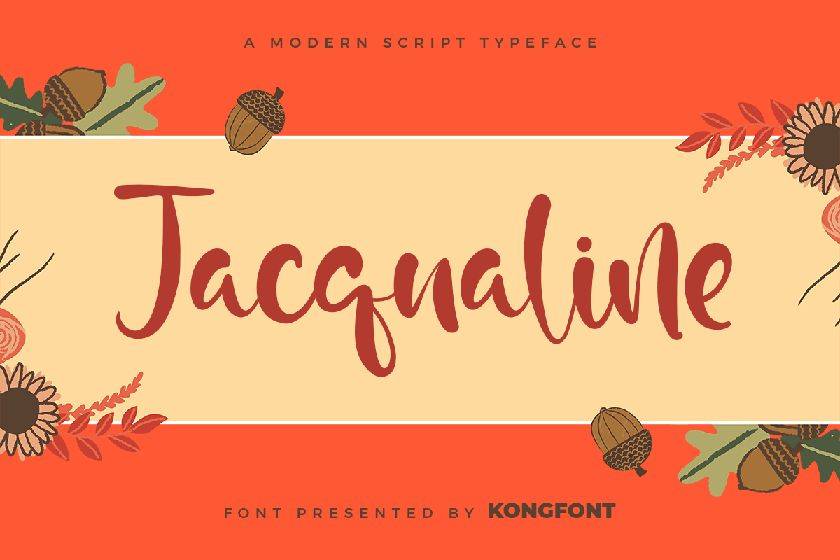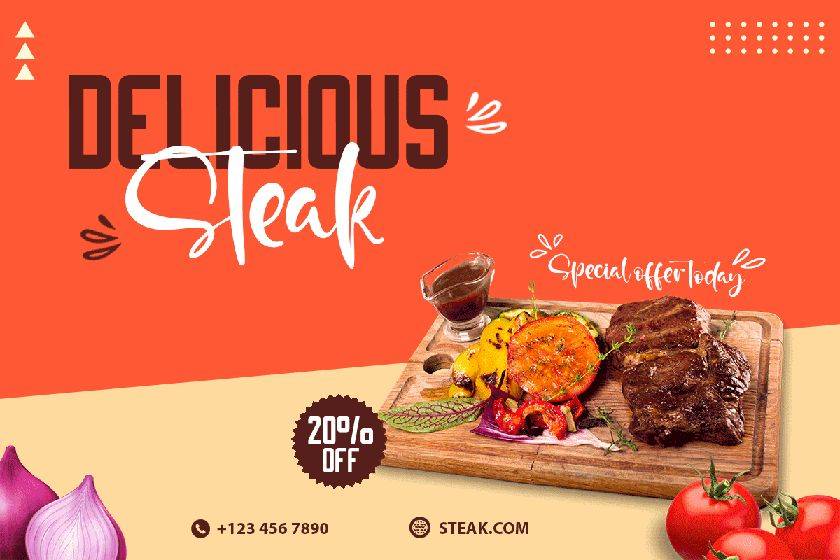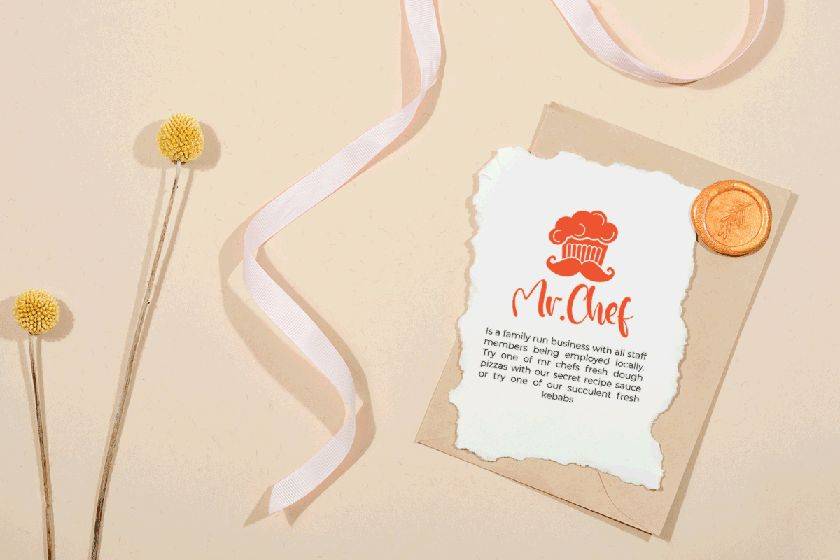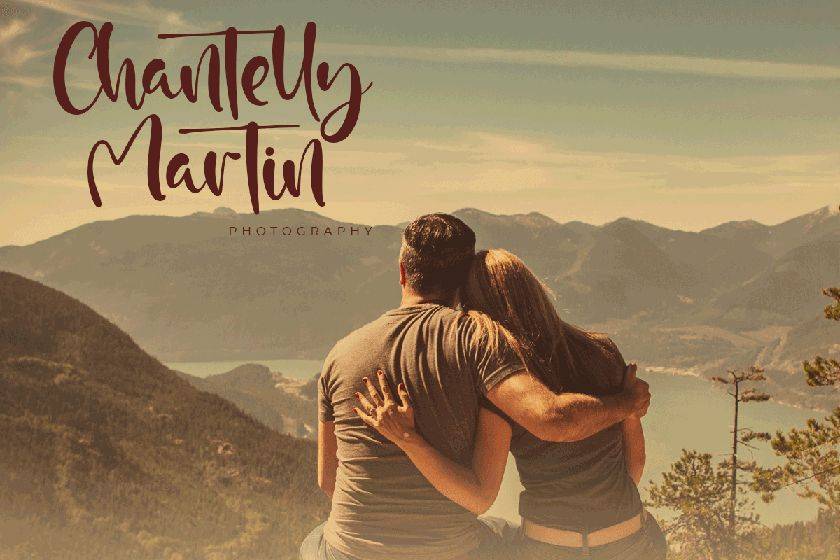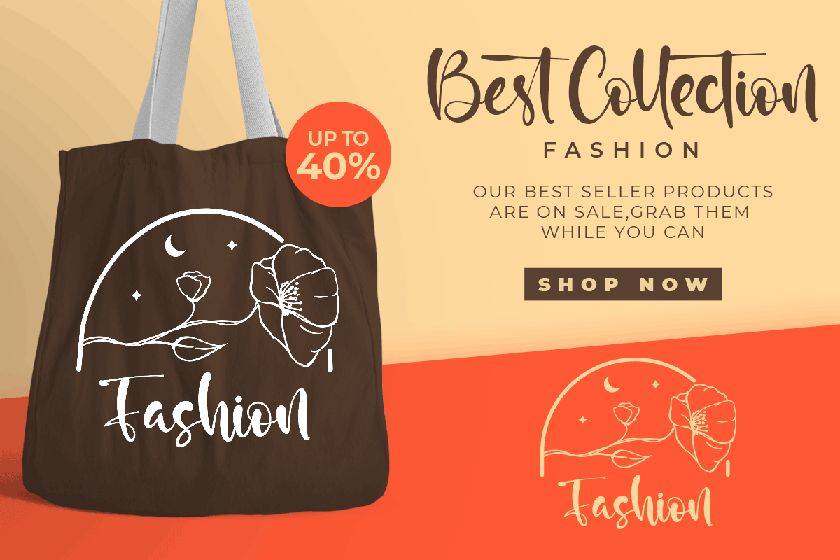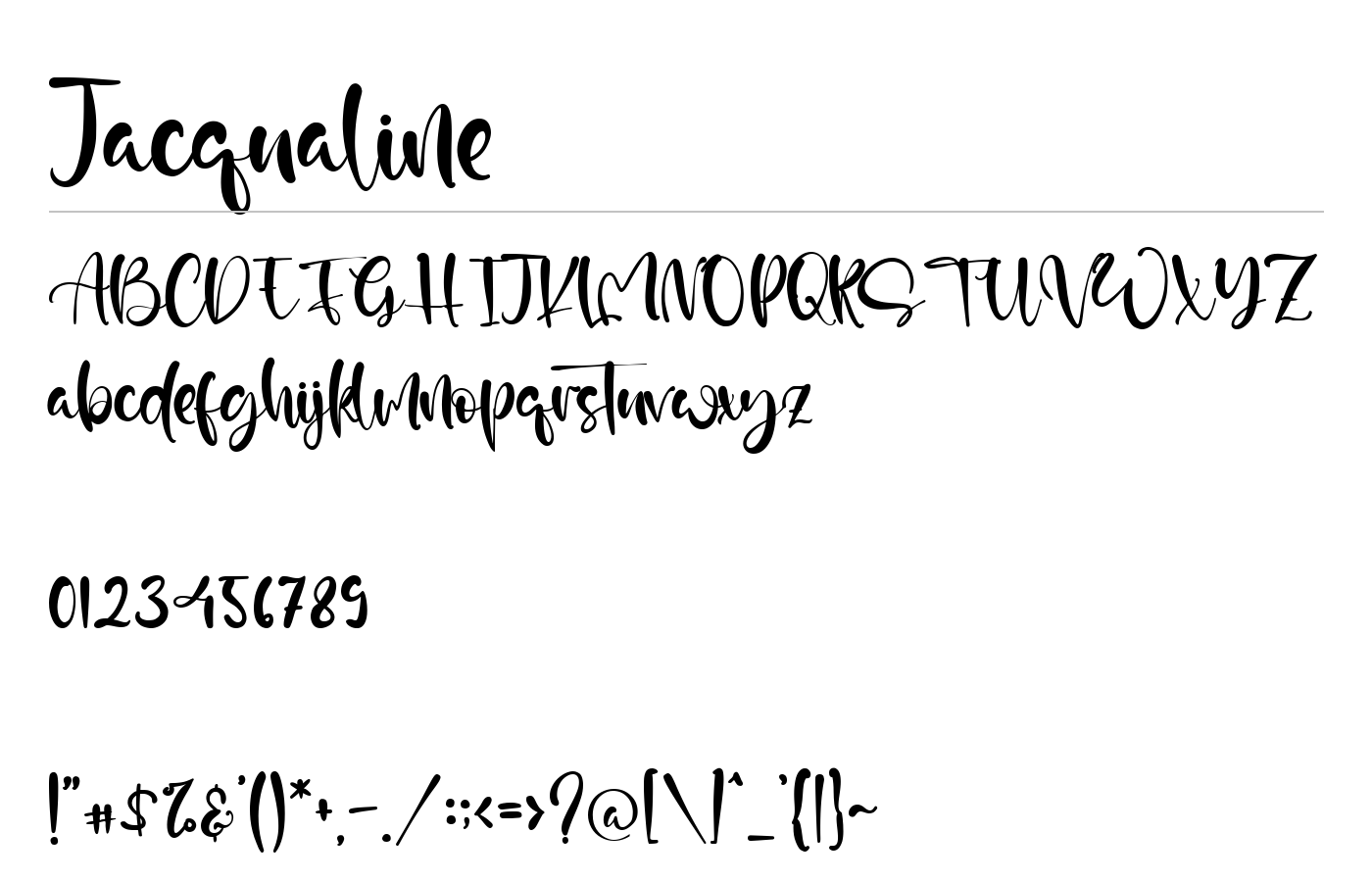
Jacqualine Script is a playful and lively handwritten script font characterized by its casual, brush-like strokes and varied letter heights that create a dynamic, informal feel. Its moderately bold weight and flowing, slightly irregular characters add a personal and approachable touch, making it ideal for creative branding, invitations, and lifestyle-oriented designs. This font works well in contexts where a friendly, artistic style is desired, offering versatility for headlines, logos, and decorative text.
Jacqualine Script Font
About Jacqualine Script Font